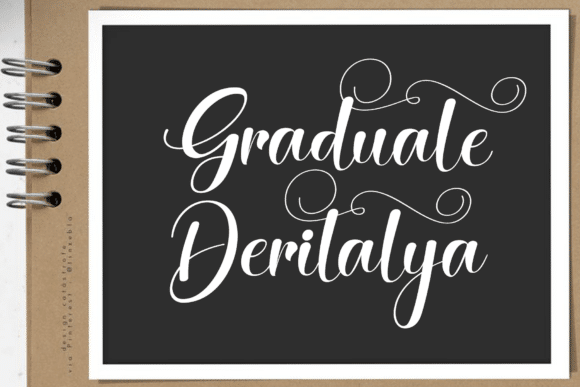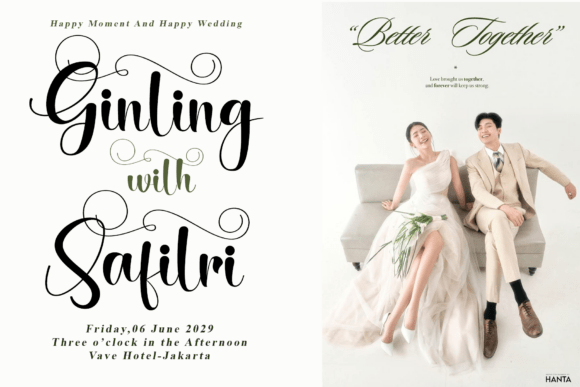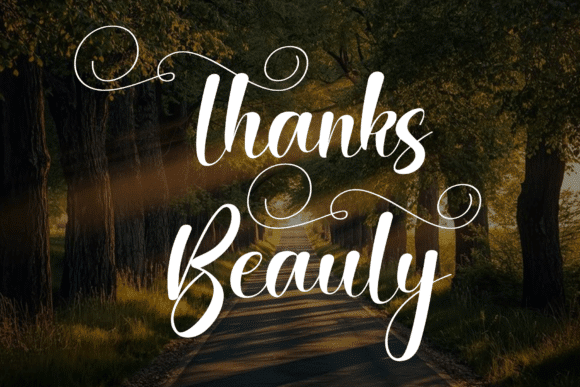
Malila Delight Font Font
Indulge in the luxurious flow of the Malila Delight font, an exquisite calligraphic script typeface that radiates elegance and romance.